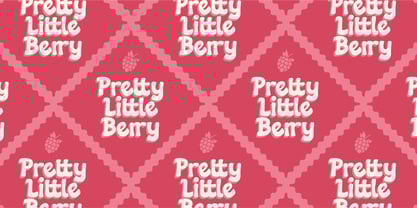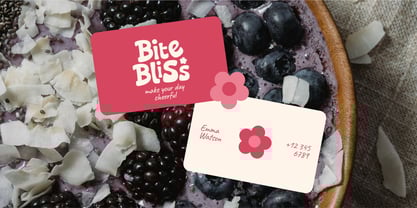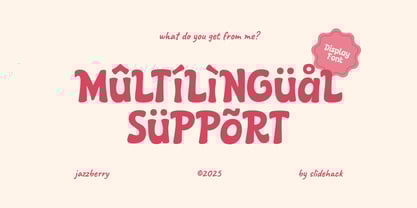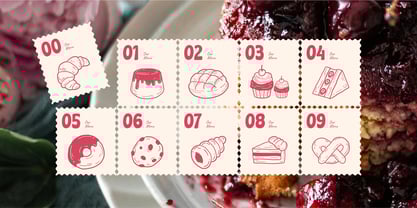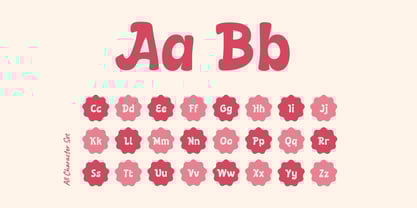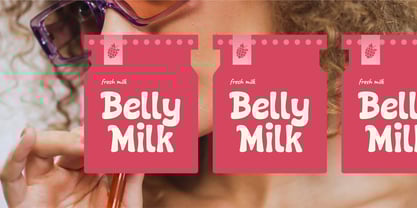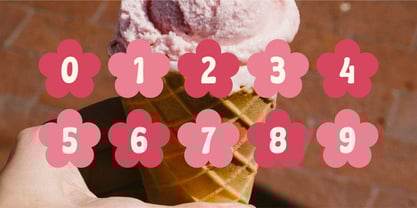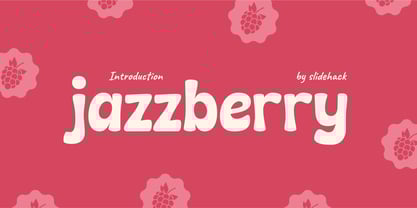
Jazzberry
by Slidehack
The Jazzberry Font Family was designed by Panca Ahmadi Hasan and published by Slidehack. Jazzberry contains 1 styles. More about this family
Jazzberry is a playful and bold display font designed to bring energy and personality to your creative projects. With its fun curves, smooth shapes, and friendly vibe, this typeface is perfect for branding, packaging, posters, and social media designs. Ideal for logos, titles, invitations, and eye-catching headlines, Jazzberry adds a vibrant and modern touch that helps your designs stand out beautifully.